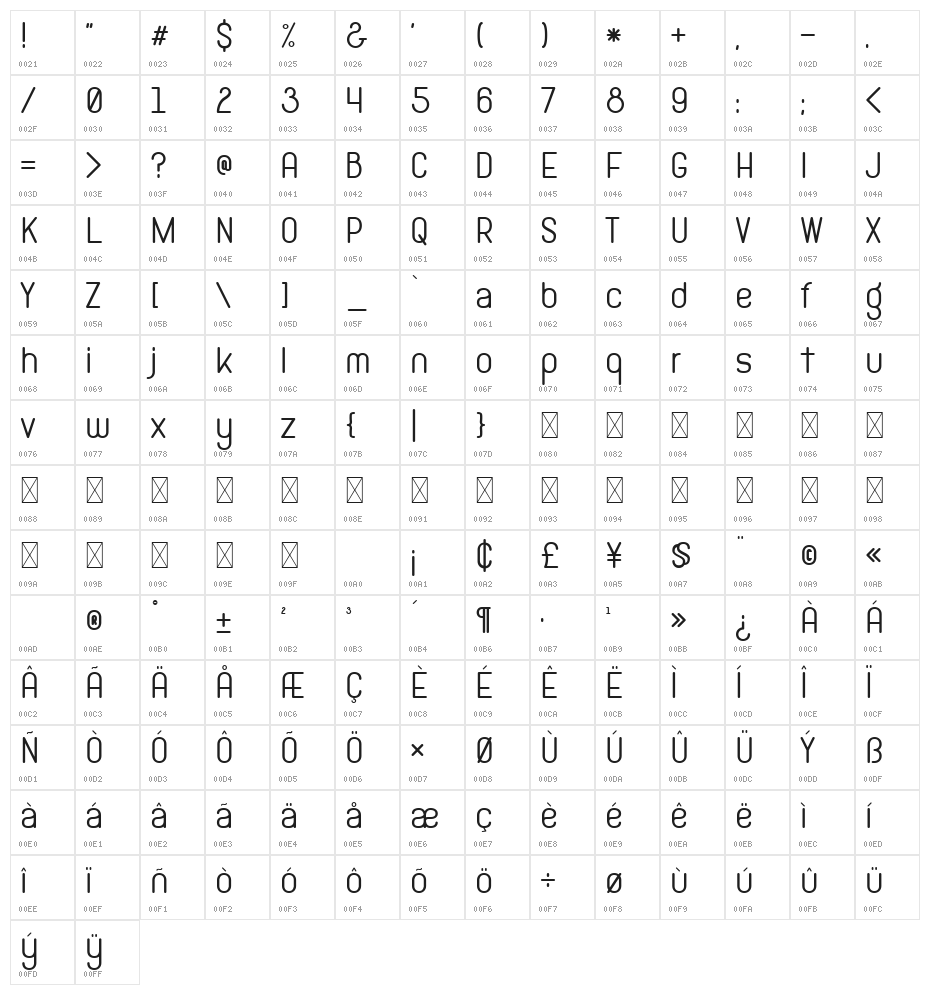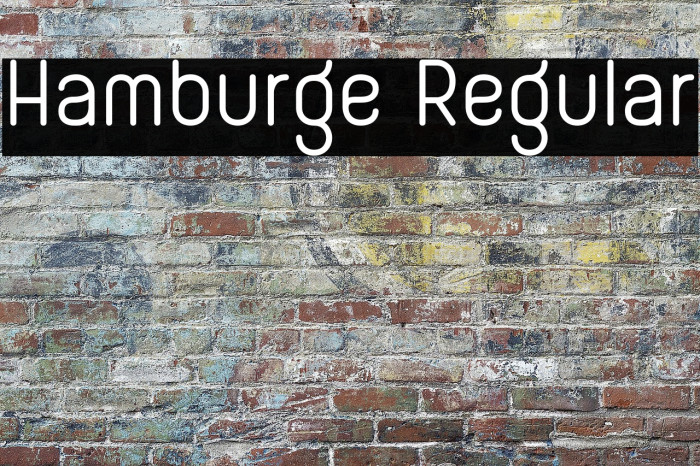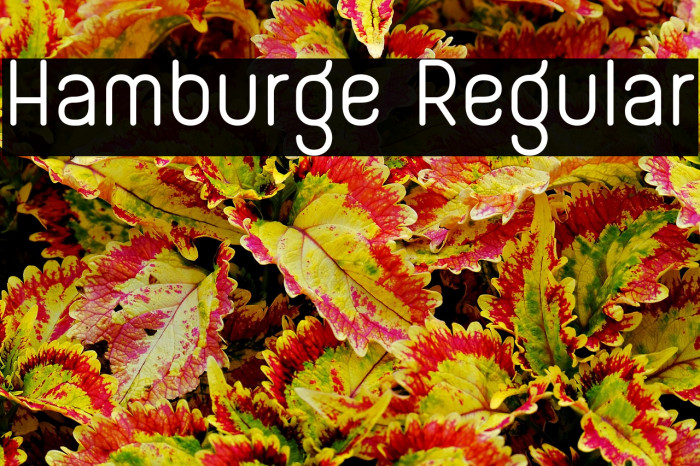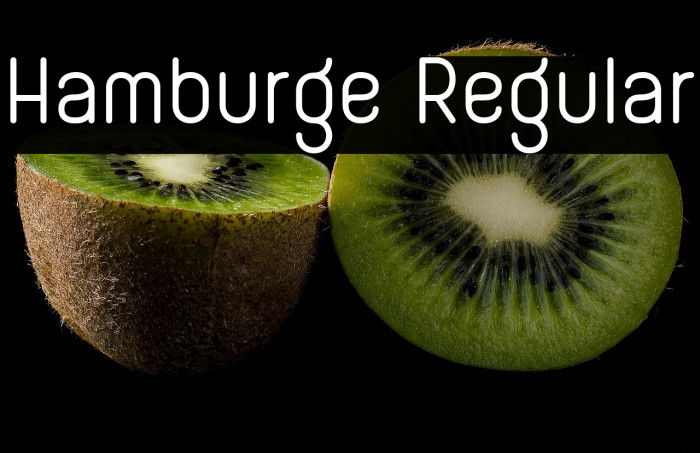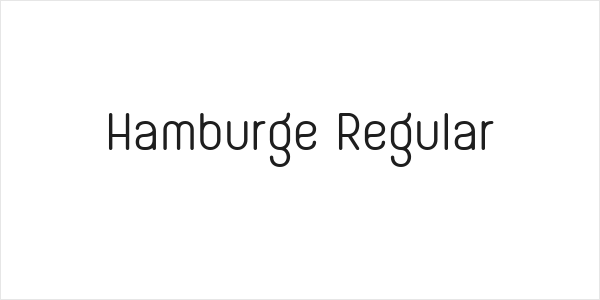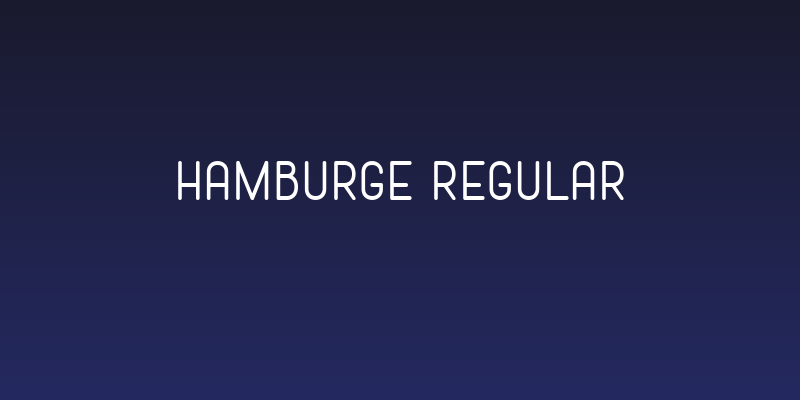
Hamburge Regular Font
Hamburge Regular Description
This font features a clean and modern sans-serif design with rounded edges, giving it a friendly and approachable appearance. The characters are evenly spaced, contributing to its readability. The uniform stroke width across all characters provides a consistent and harmonious look. It includes a full set of uppercase and lowercase letters, numbers, and a variety of special characters, making it versatile for different uses. The rounded terminals and geometric shapes add a contemporary touch, suitable for both digital and print media.